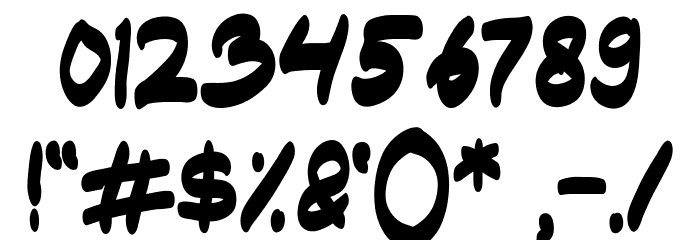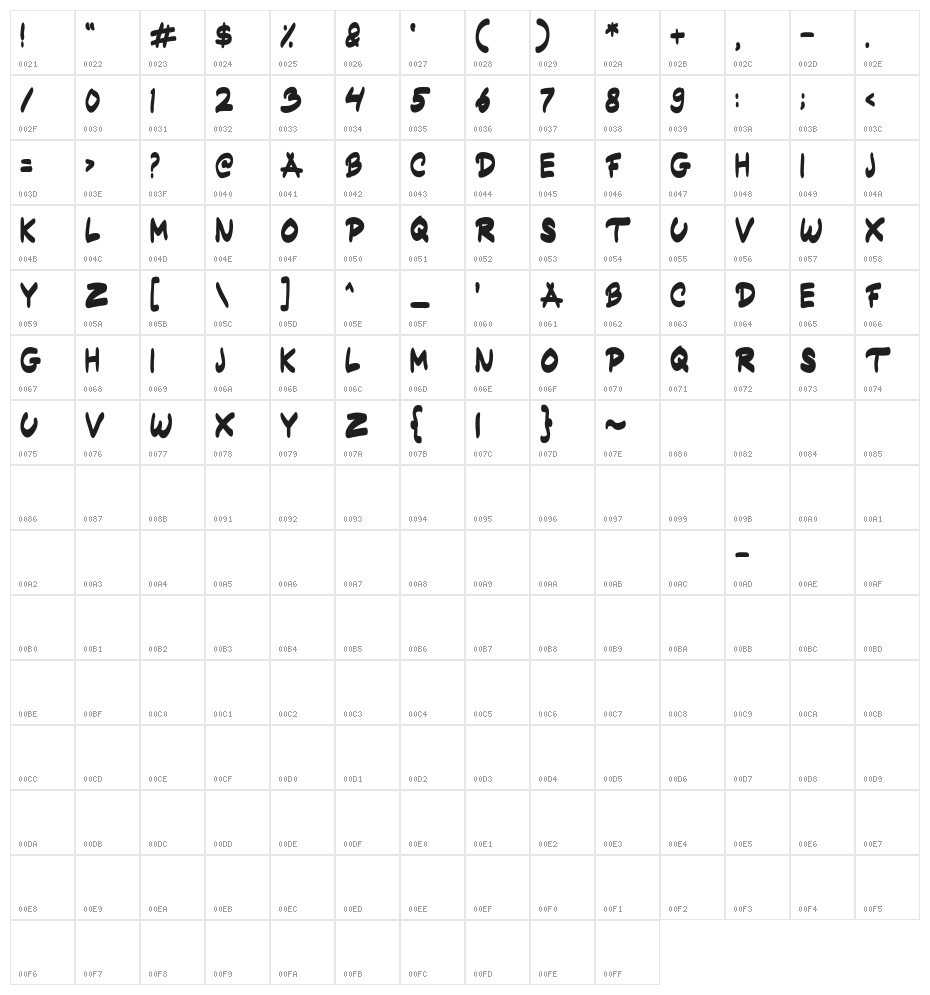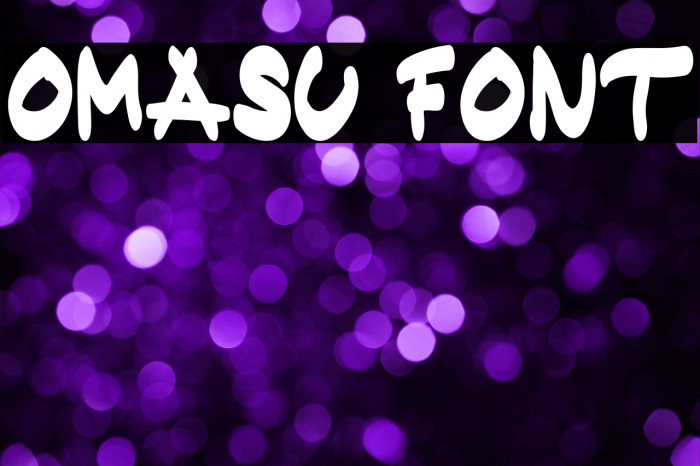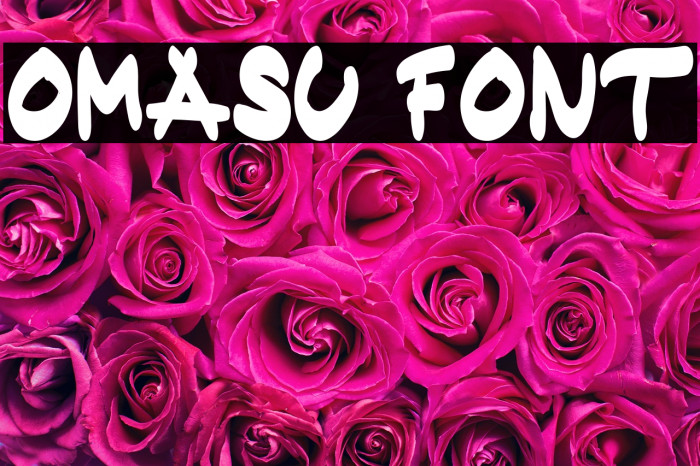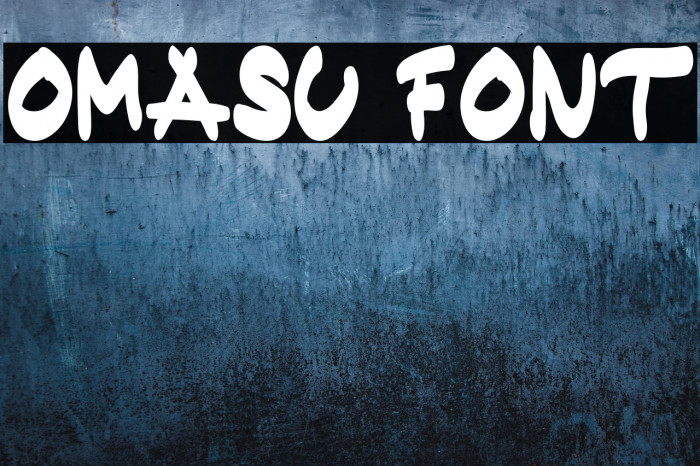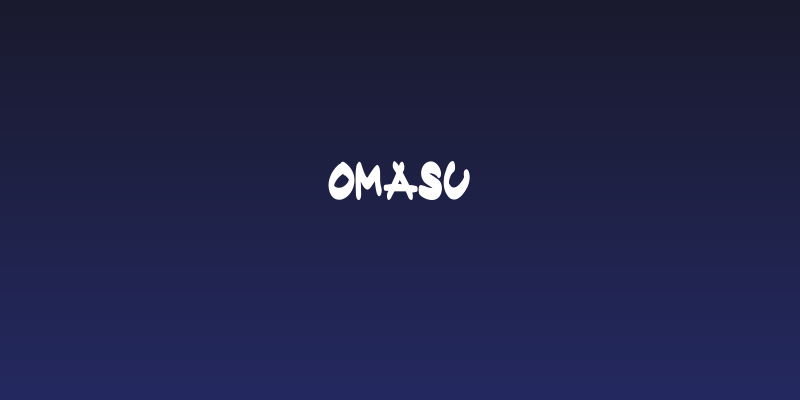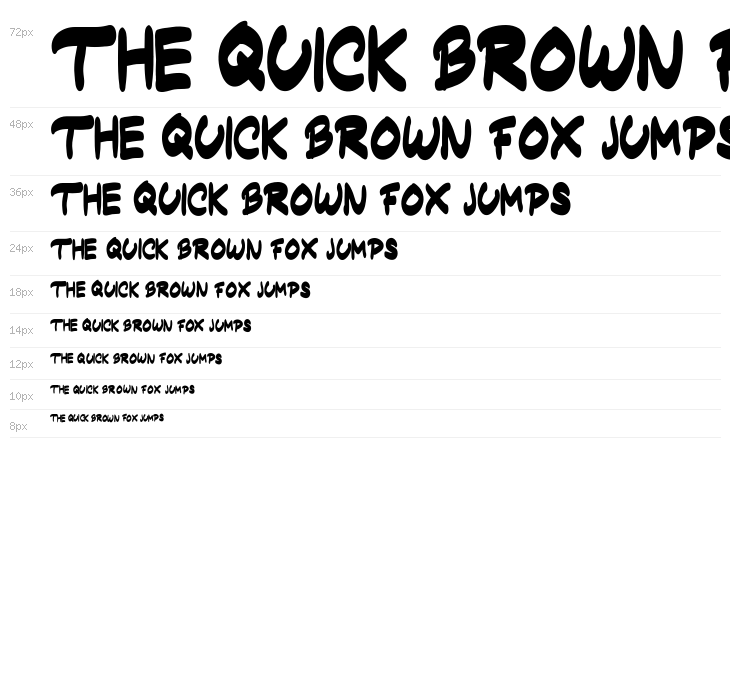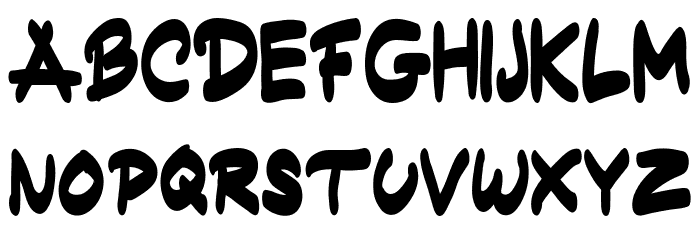
OMASU Font
OMASU Description
This font features a bold, playful style with rounded edges and a slightly irregular form, giving it a hand-drawn appearance. The characters are thick and substantial, making them highly visible and impactful. Each letter has a unique flair, with varying stroke widths that add to the whimsical and informal feel. The numbers and special characters maintain this playful aesthetic, ensuring consistency throughout the font. This style is suitable for projects that require a fun and engaging look, such as children's books, posters, or branding for creative businesses.
| Proposed Projects | Ideal for children's books, playful posters, creative branding, and informal invitations. |